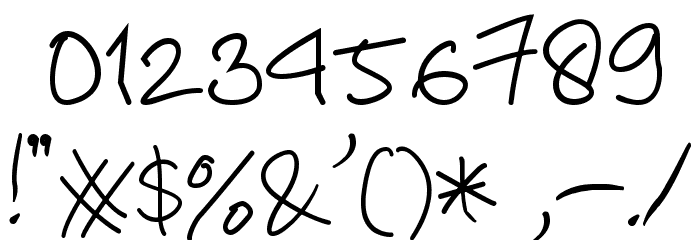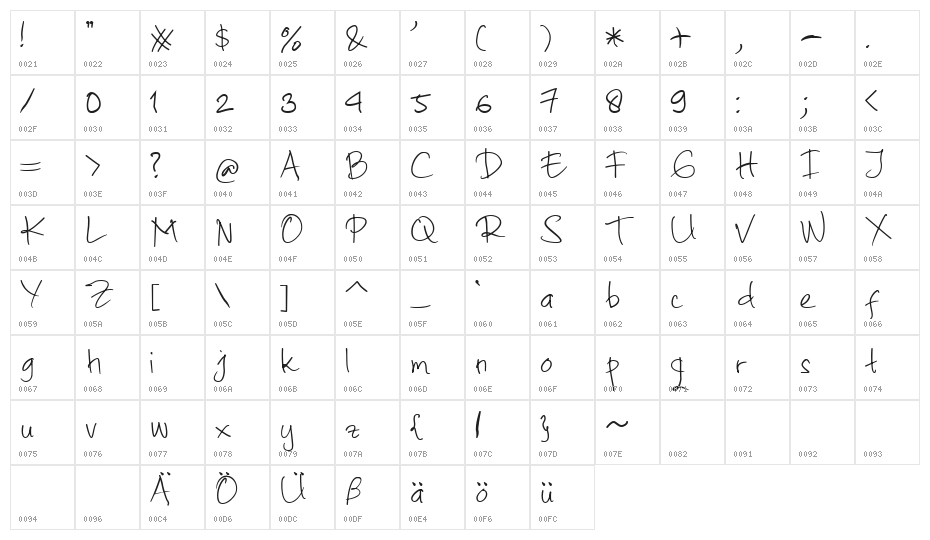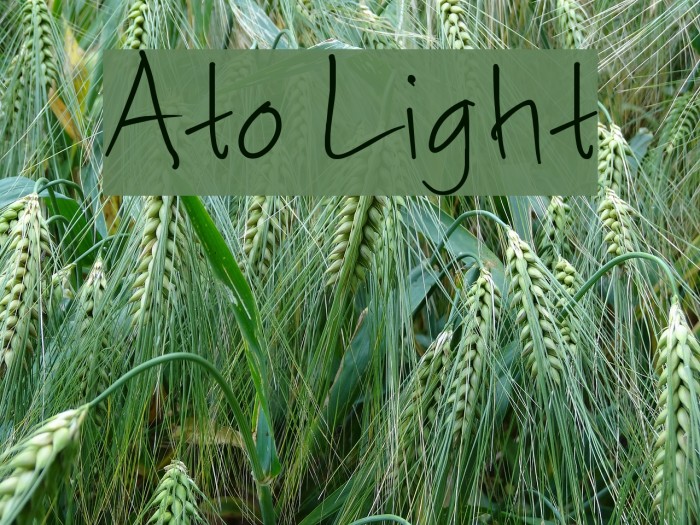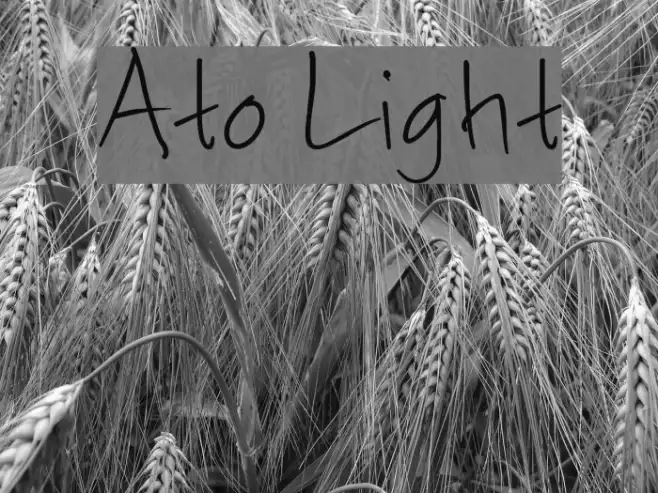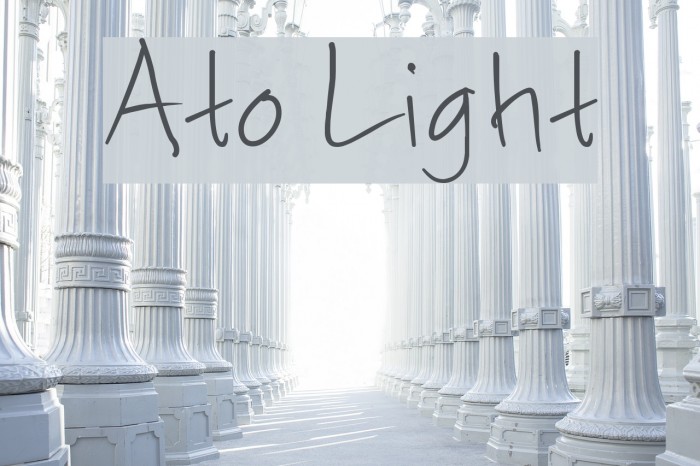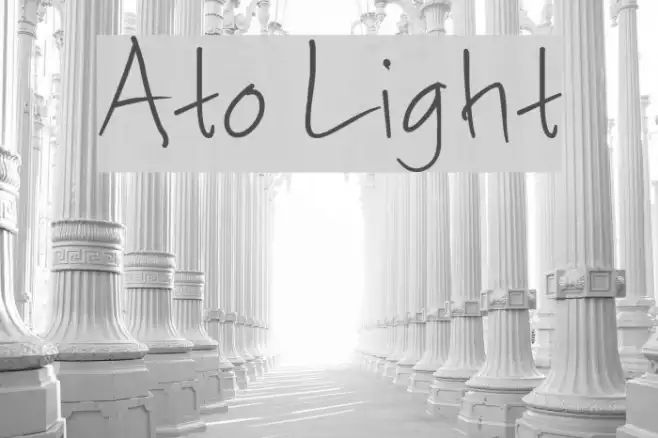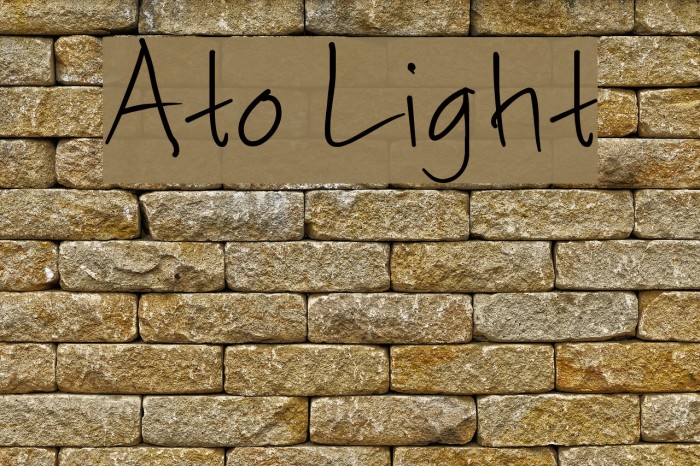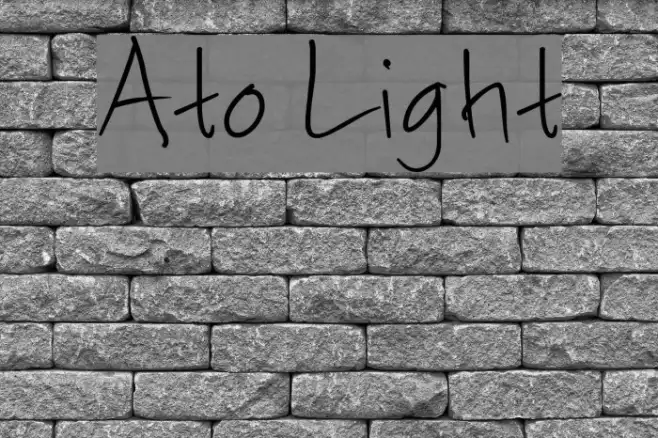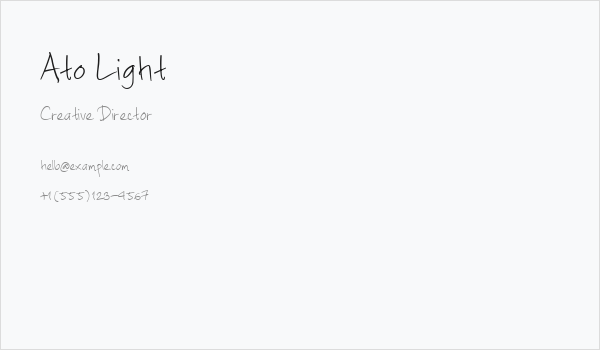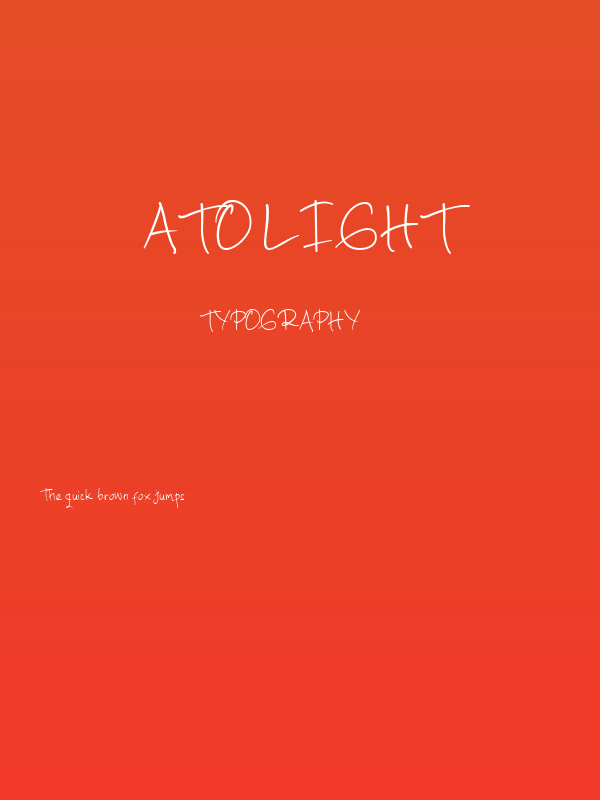
Ato Light Font
Ato Light Description
This font exhibits a casual, handwritten style with a playful and informal appearance. The characters are slightly slanted, giving a dynamic and lively feel. The strokes are consistent in width, maintaining a uniform look throughout. The uppercase letters are distinct and bold, while the lowercase letters are more fluid and connected, enhancing the handwritten aesthetic. The numerals are clear and legible, matching the overall style of the alphabet. Special characters are creatively designed, adding to the font's versatility. This font is ideal for projects that require a personal touch or a relaxed vibe.